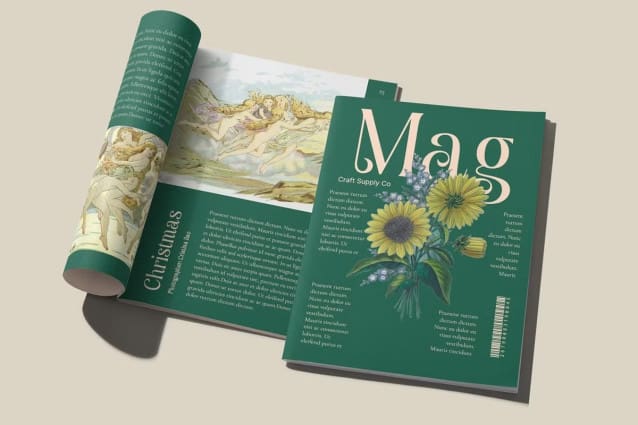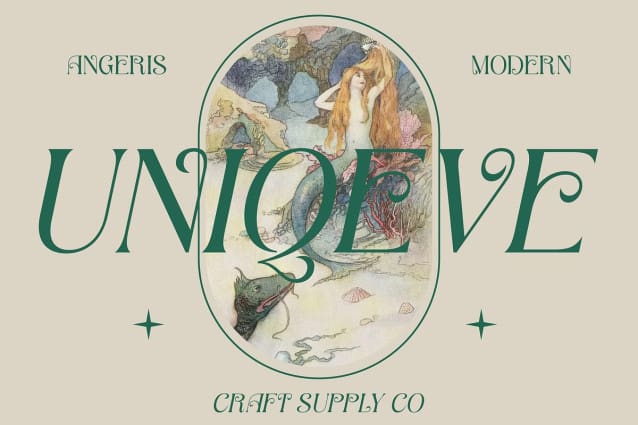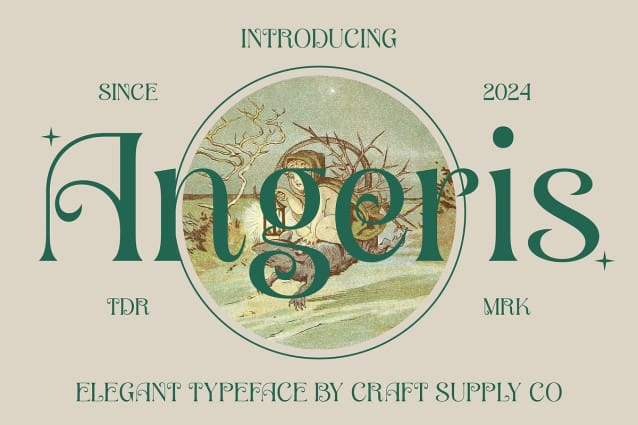
Angeris Font
Angeris Font: A Nod to Retro Elegance. Retro Inspiration Angeris font draws inspiration from the iconic Art Nouveau movement, infusing it with a retro charm that evokes nostalgia. Its design reflects the intricate motifs and organic forms synonymous with the Art Nouveau era.
Serif Retro Design With its serif retro design, This font exudes timeless elegance, reminiscent of the classic typography of the early 20th century. The serif details add a touch of sophistication while maintaining readability and versatility.
Art Nouveau Influence The font pays homage to Art Nouveau through intricate details and flowing lines, capturing the essence of the artistic movement’s decorative style. Each letter carries the graceful curves and ornate flourishes characteristic of Art Nouveau typography.
Versatile Application This font is versatile in its application, suitable for a wide range of design projects, including branding, editorial, and packaging, where a touch of vintage sophistication is desired. It effortlessly elevates any design with its nostalgic yet contemporary aesthetic.
Timeless Retro Appeal This font combines the elegance of serif typography with retro-inspired elements, making it an ideal choice for designers seeking to infuse their projects with a hint of Art Nouveau charm. With its versatile application and timeless appeal, Angeris Font adds a touch of vintage sophistication to any design endeavor, ensuring it stands out with its unique retro allure.